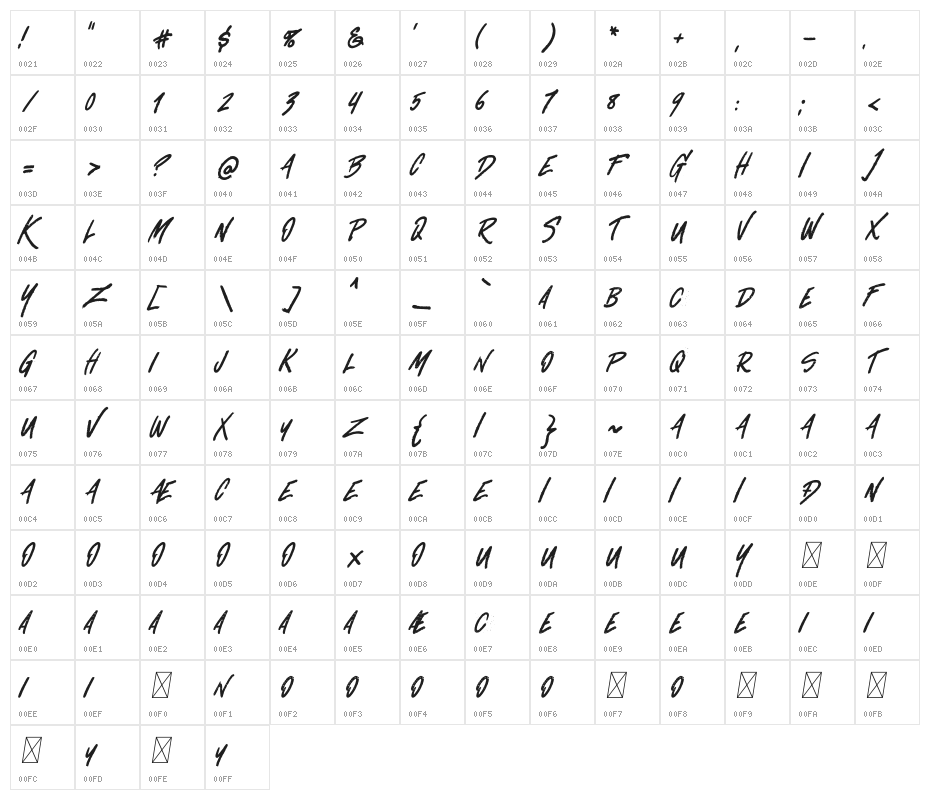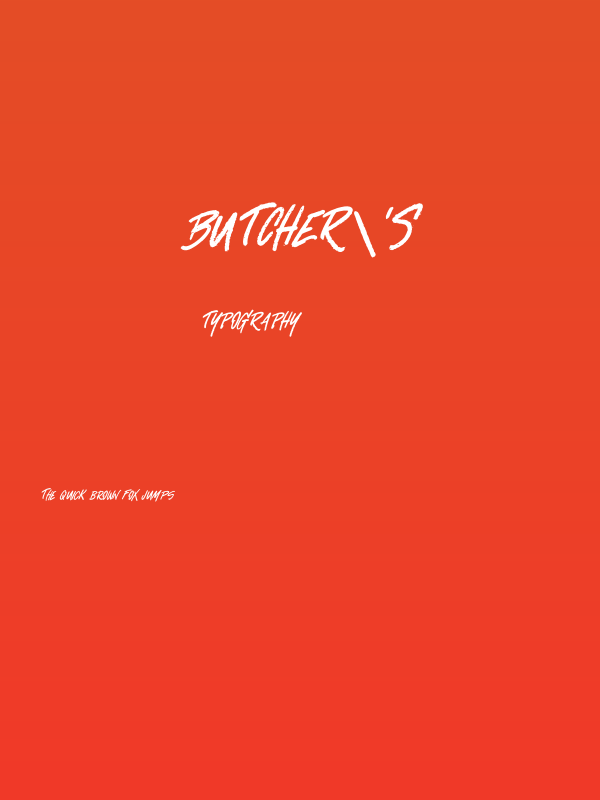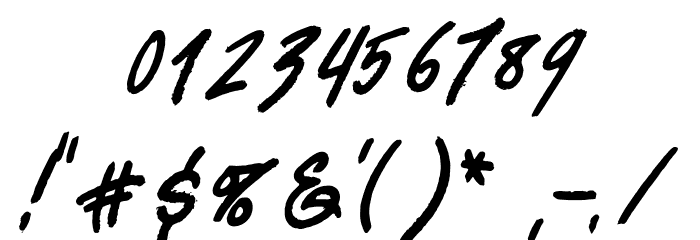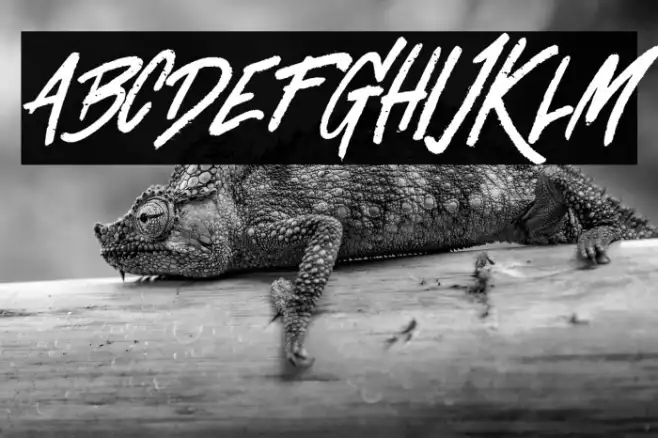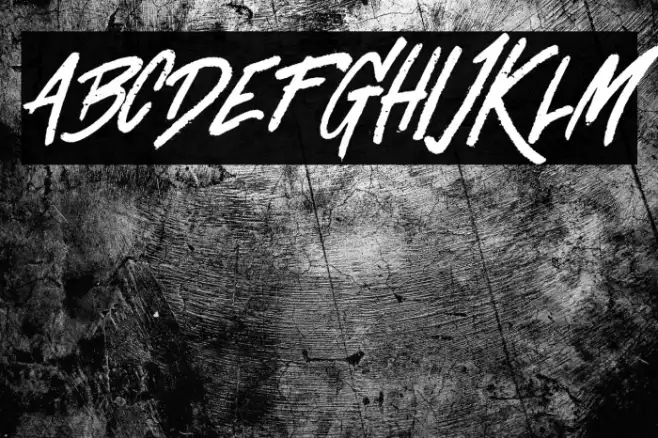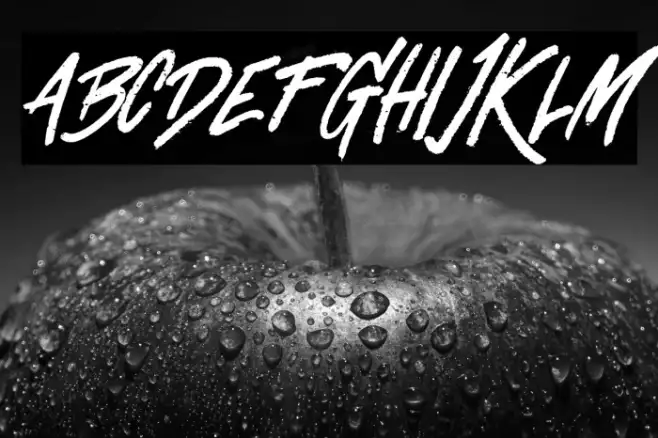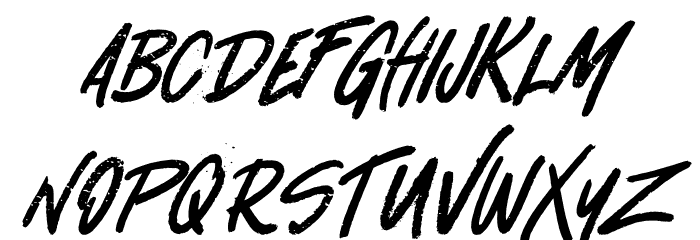
Butcher's Font
Butcher's Description
This font exudes a bold and dynamic energy, characterized by its brush-like strokes and slightly slanted letters. The uppercase and lowercase letters maintain a consistent style, with a rough, hand-drawn appearance that adds a sense of authenticity and rawness. The numbers and special characters follow the same aesthetic, ensuring a cohesive look across all glyphs. The font's irregular edges and varied stroke thickness contribute to its expressive and artistic feel, making it ideal for projects that require a touch of personality and flair.
| Proposed Projects | Ideal for branding, posters, album covers, and any design needing a bold, artistic touch. |